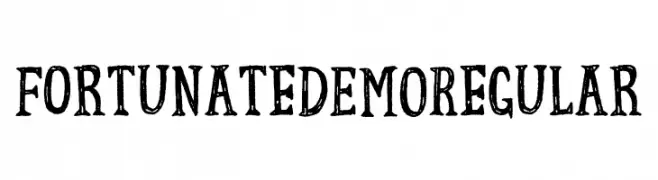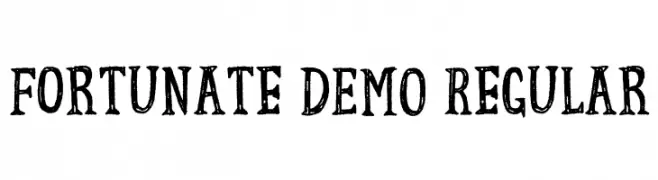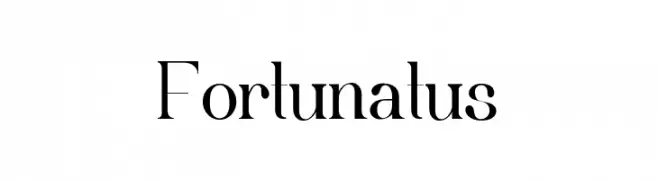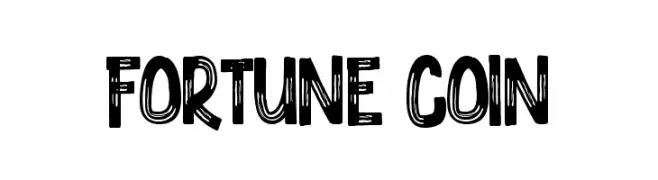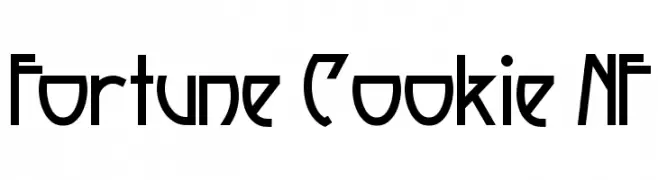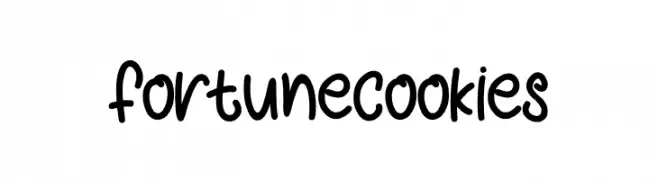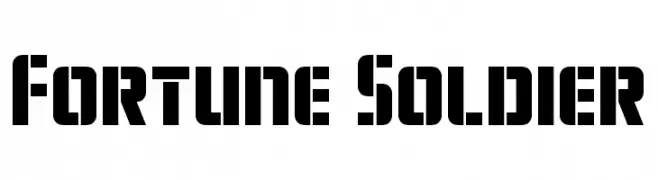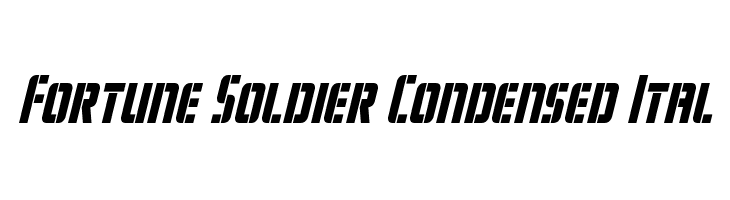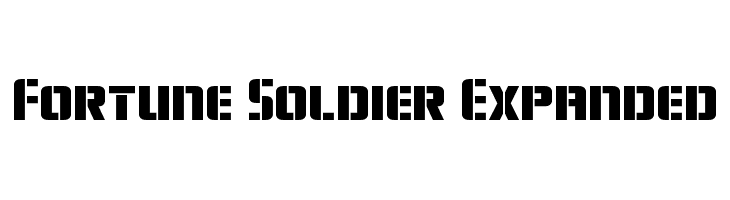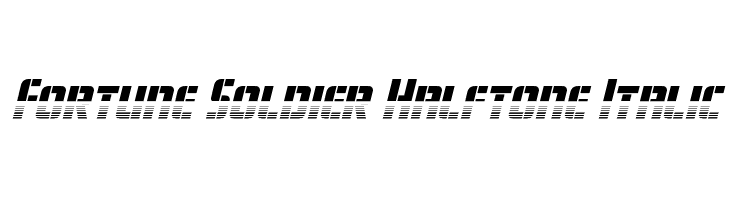
A bold, textured font with a rustic, hand-drawn appearance.
A flowing, elegant script font with intricate loops and curves.
A high-contrast serif font combining modern and classic elements with elegant styling.
A bold, hand-drawn font with textured, sketch-like details.
A bold, hand-drawn font with a playful and textured design.
A geometric and angular font with a modern, artistic flair.
A playful, handwritten-style font with a smooth, flowing appearance.
Distressed, bold stencil font with jagged vertical splits.
A bold, geometric font with a military-inspired design and strong, block-like characters.